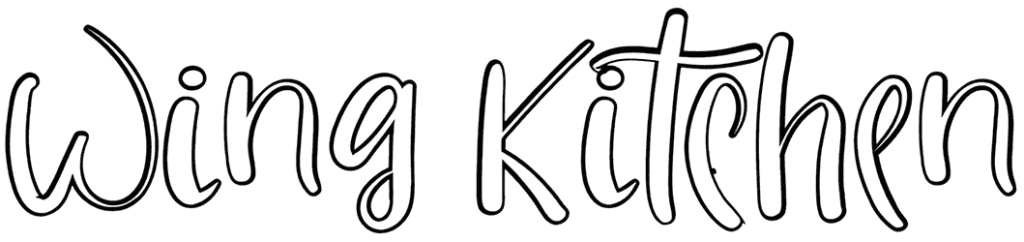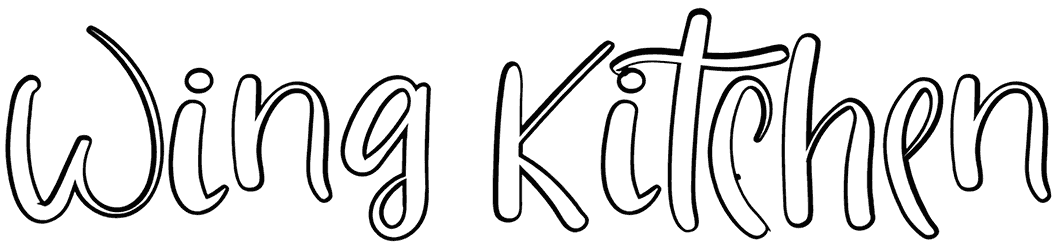
Wing Kitchen Font
Wing Kitchen is an outline font that can give a nostalgic and timeless feeling to your writings that no other font can handle.
This font combines handwritten letters with an outline that you will definitely need to implement in personalized projects. The different style of this font has enabled you to implement all kinds of creative ideas for designing posters and logos, printing t-shirts and magazines, and typography designs using it.